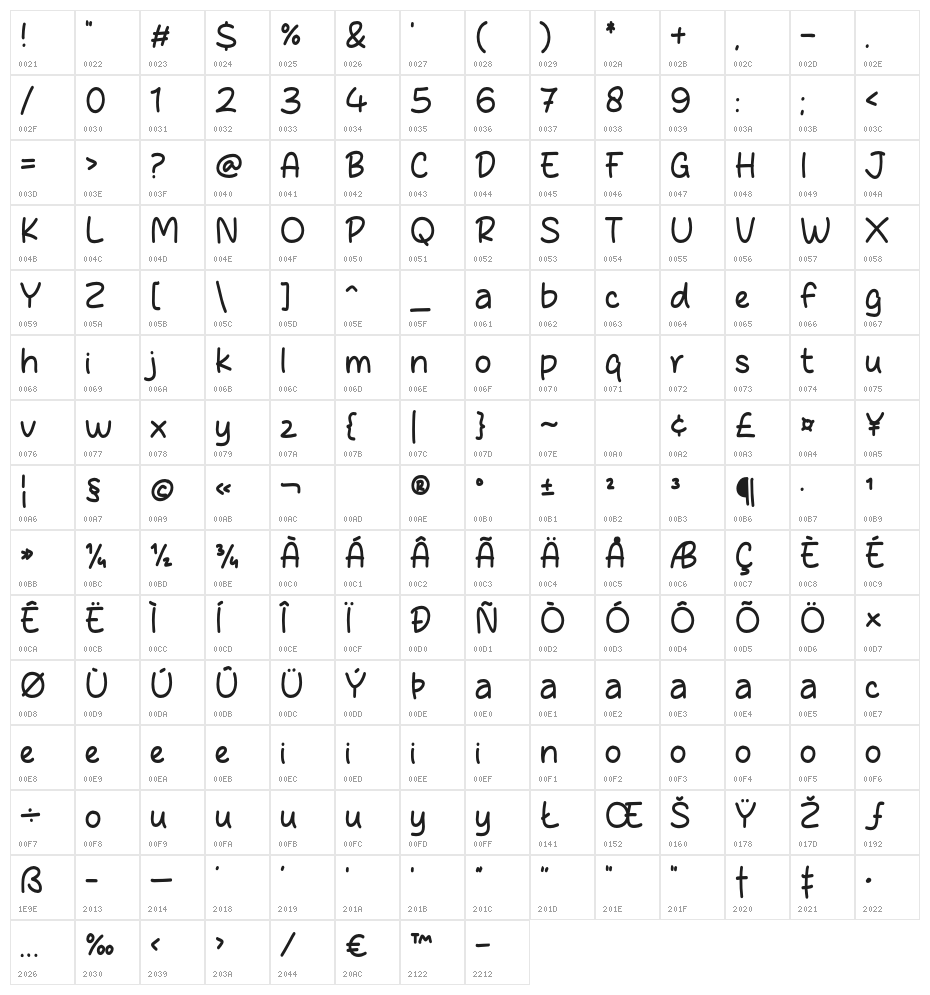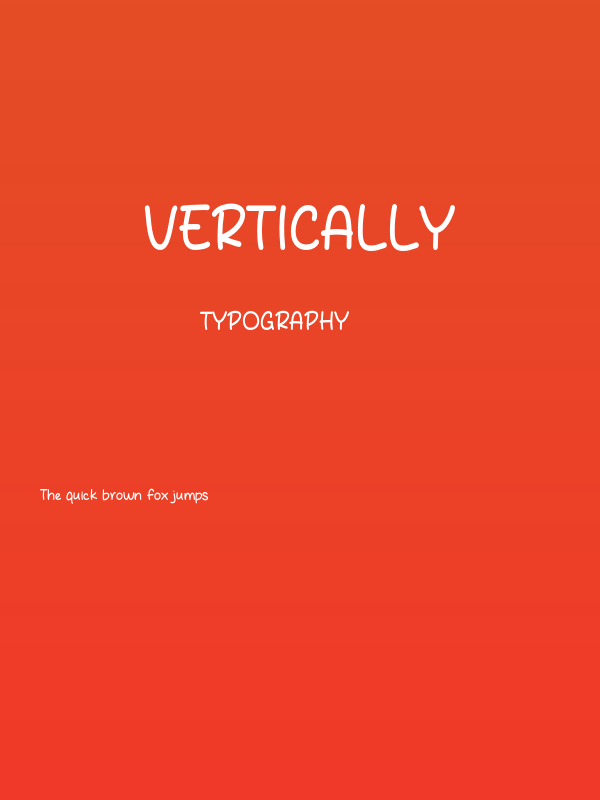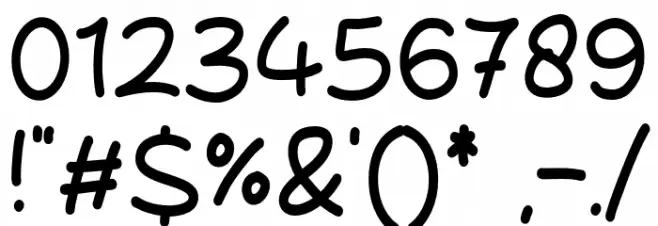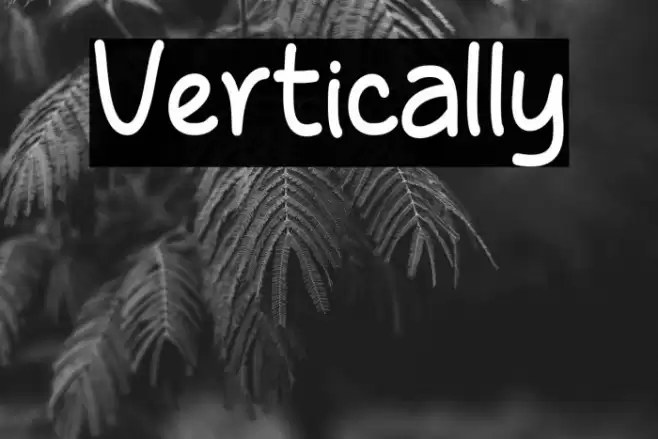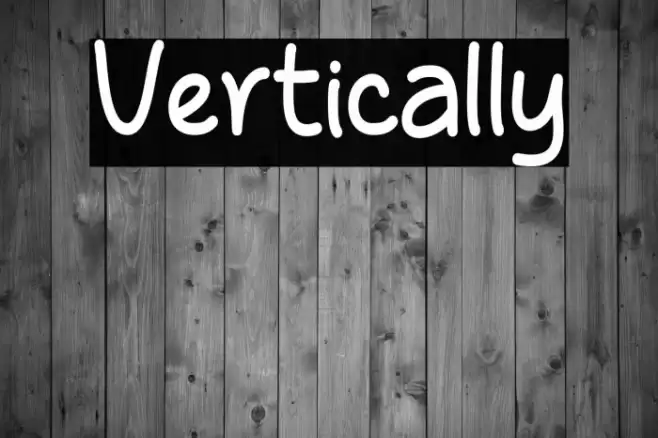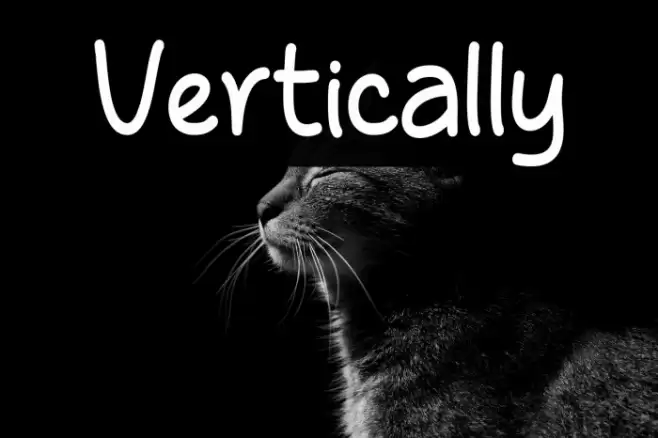
Vertically Font
Vertically Description
This font features a playful and casual handwritten style, characterized by its rounded and smooth letterforms. The strokes are consistent in width, giving it a uniform appearance that is both approachable and friendly. The letters are slightly slanted, adding a dynamic and informal feel. The uppercase and lowercase letters are well-proportioned, maintaining readability while conveying a sense of whimsy. The numerals and special characters follow the same design principles, ensuring cohesion across all glyphs. This font is ideal for projects that require a personal touch or a relaxed aesthetic.
| Use Case | Logos, Headlines, Informal text |
| Proposed Projects | Ideal for greeting cards, children's books, casual branding, and social media graphics. |